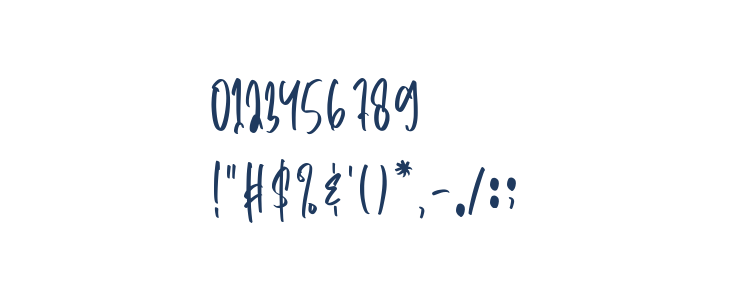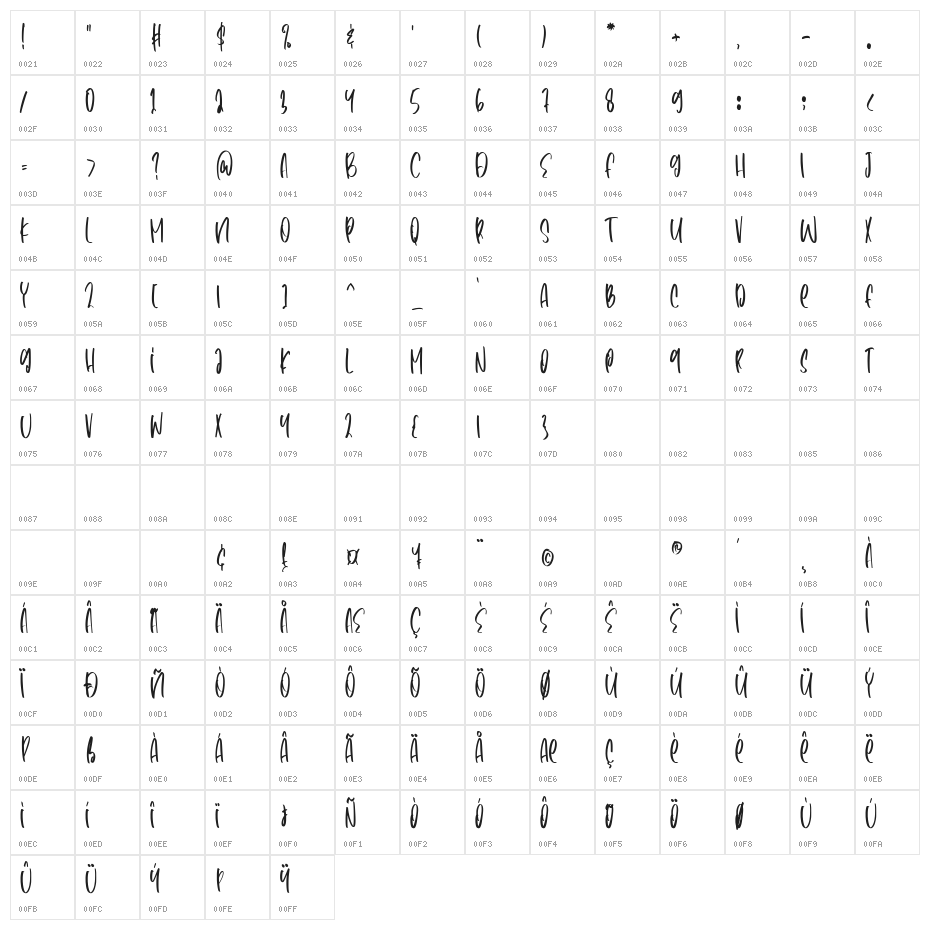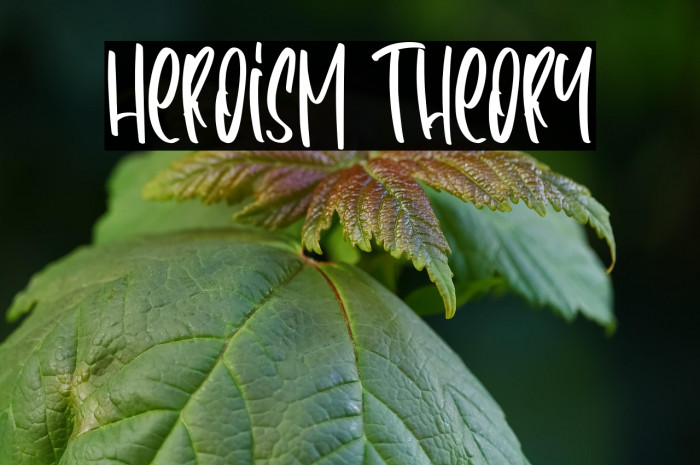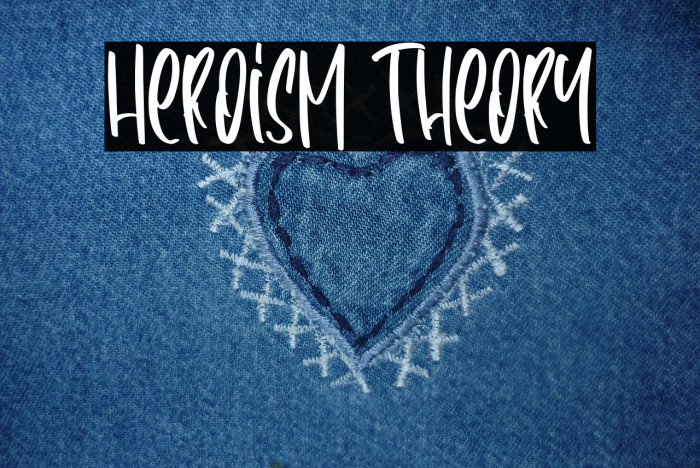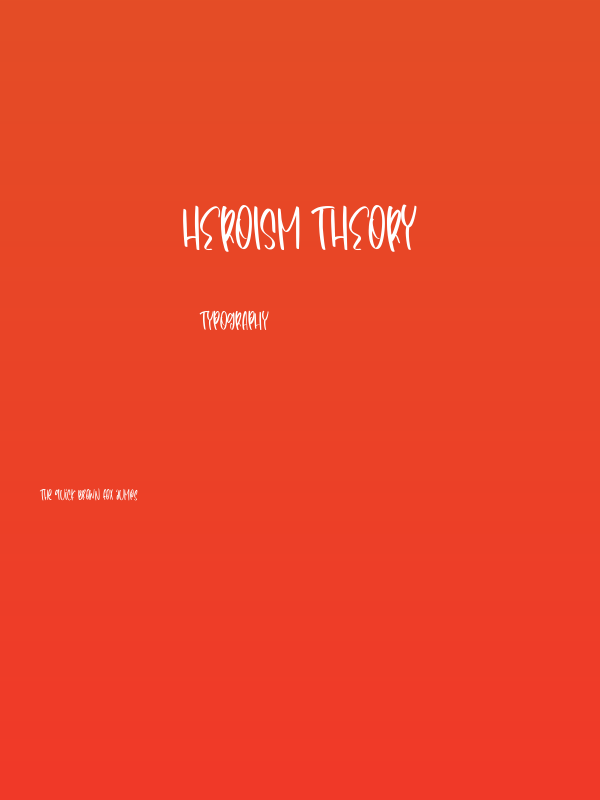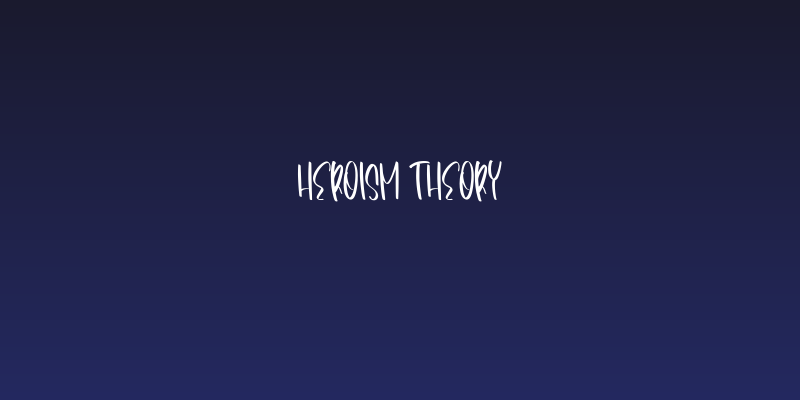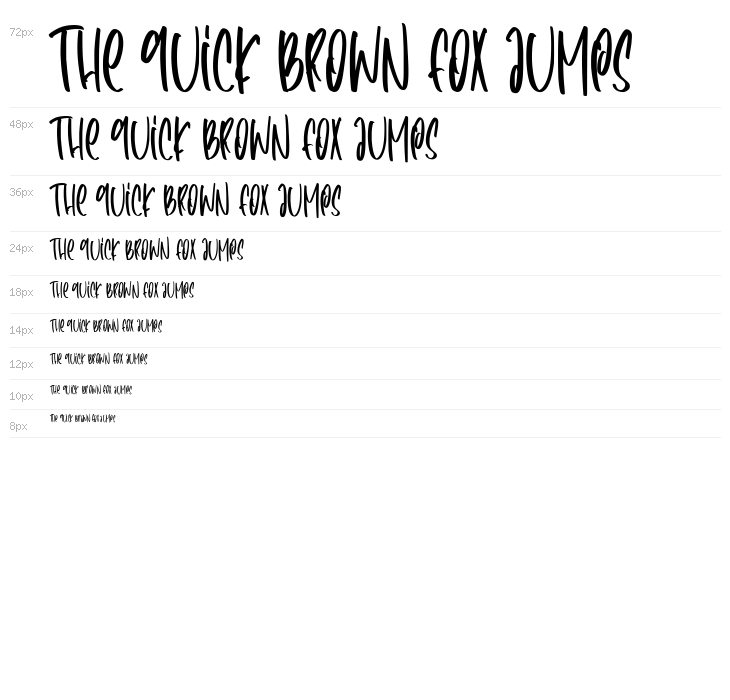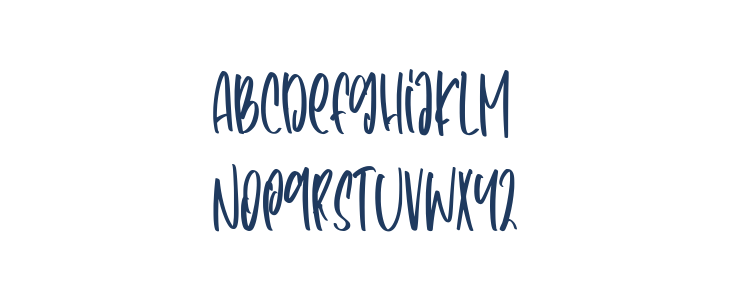
Heroism Theory Font
Heroism Theory Description
This font features a lively and expressive handwritten style, characterized by its fluid and dynamic strokes. The letters are slightly slanted, giving a sense of motion and energy. The uppercase and lowercase letters maintain a consistent style, with rounded edges and varying stroke widths that add a playful touch. The numbers and special characters are designed to match the overall aesthetic, ensuring a cohesive look across all text. This font is ideal for projects that require a personal and informal feel, such as greeting cards, invitations, or social media graphics.
| Use Case | Logos, Headlines, Informal text |
| Proposed Projects | Ideal for greeting cards, invitations, social media graphics, and personal branding. |